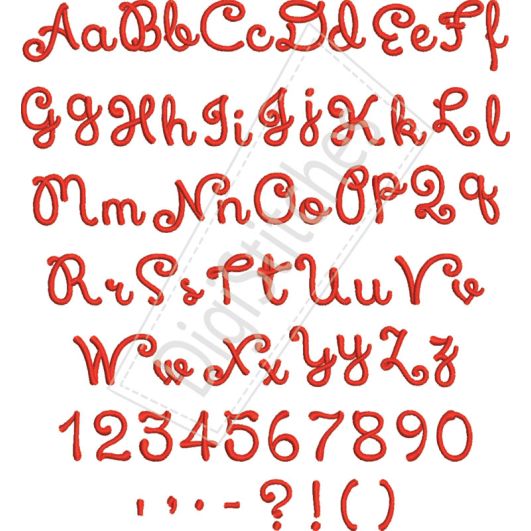
Mara Satin Stitch Embroidery Font
Mara Embroidery Font
A beautiful script embroidery font! The font features bold letters that really stand out on t-shirts and projects.
Upper Case letters A thru Z, lower case letters a thru z, numbers 0-9 and punctuation as shown.